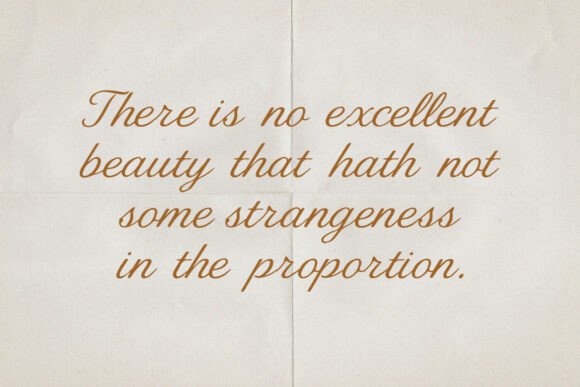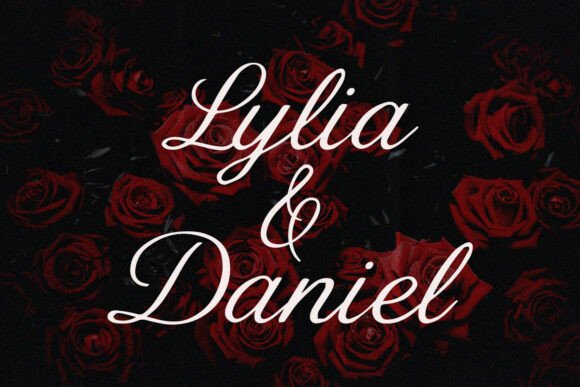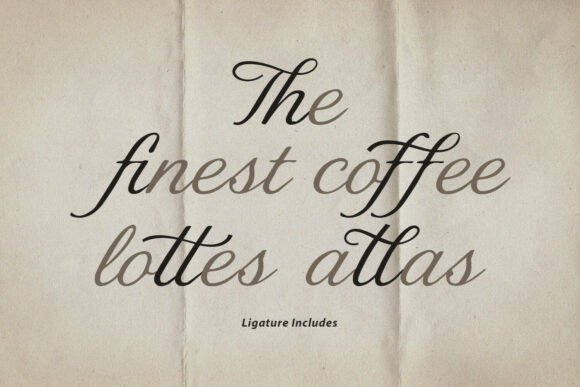
Introduction to De Lesa Paquetts Font
Introduce a touch of sophisticated luxury to your designs with De Lesa Paquetts, a classic script font meticulously crafted by Maulana Creative.
Inspired by traditional copperplate calligraphy with a modern, clean twist, this font embodies the essence of β€œFlawless Vintage Charm ” De Lesa Paquetts features fluid, graceful connections and balanced proportions, making it the perfect choice for high-end branding.